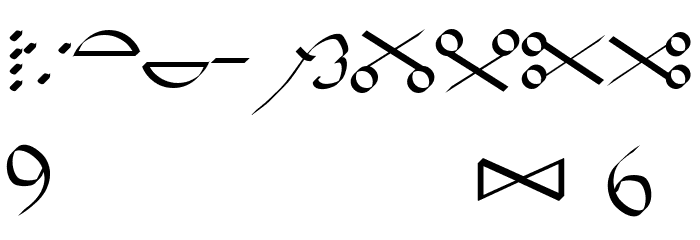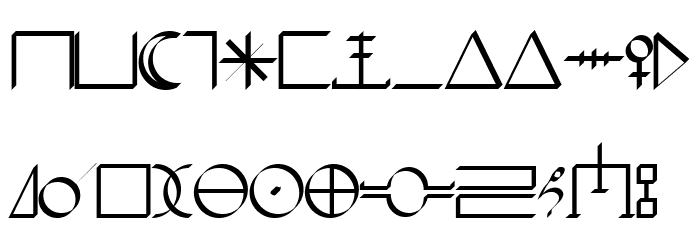
Haven Code Font
Haven Code Description
This font is a highly decorative and abstract set of symbols that resemble a fusion of geometric shapes and cryptic symbols. Each character is uniquely designed with a combination of lines, circles, and angles, creating a mysterious and futuristic appearance. The characters do not follow traditional alphabetic forms, making them ideal for artistic and conceptual projects. The design is intricate, with varying line thicknesses and a mix of open and closed shapes, contributing to its enigmatic style. This font is not suitable for standard text but serves as an artistic expression or for creating coded messages.
| Overall Style | Futuristic, Abstract |
| Use Case | Artistic designs, Conceptual art, Coded messages |
| Proposed Projects | Ideal for artistic designs, conceptual art, coded messages, or futuristic themes. |